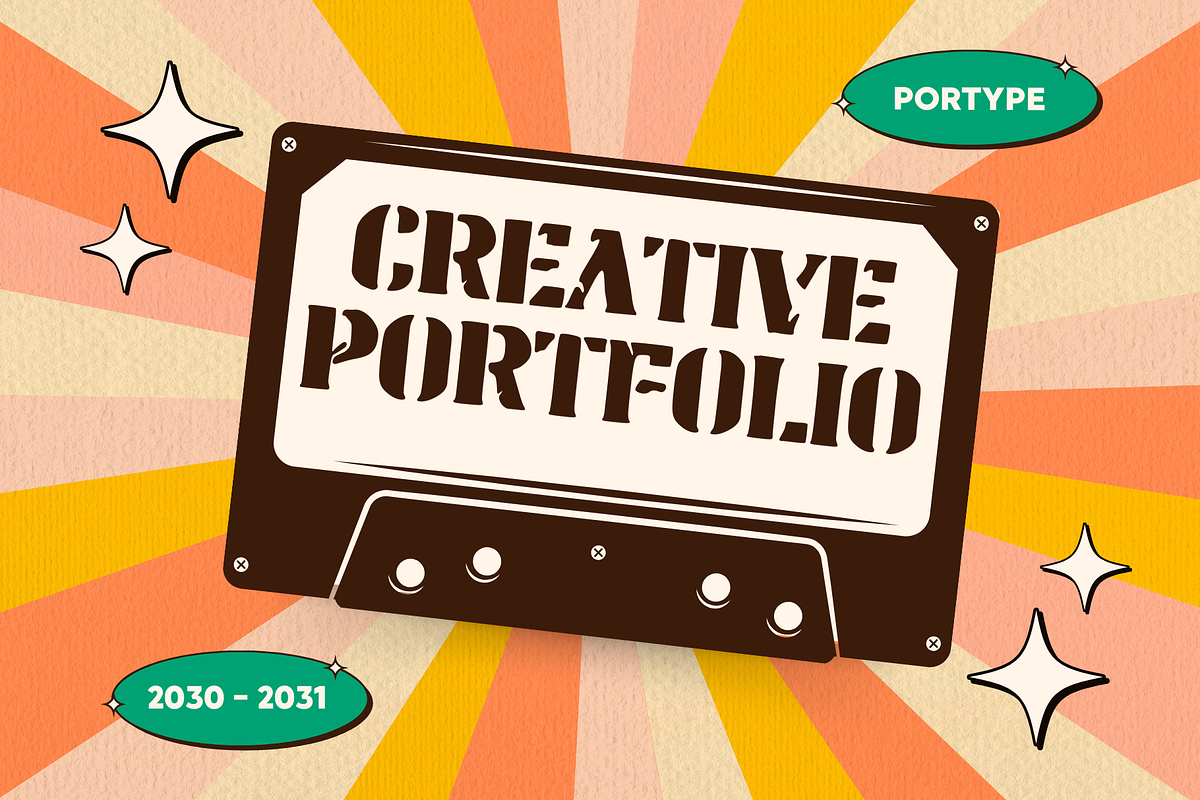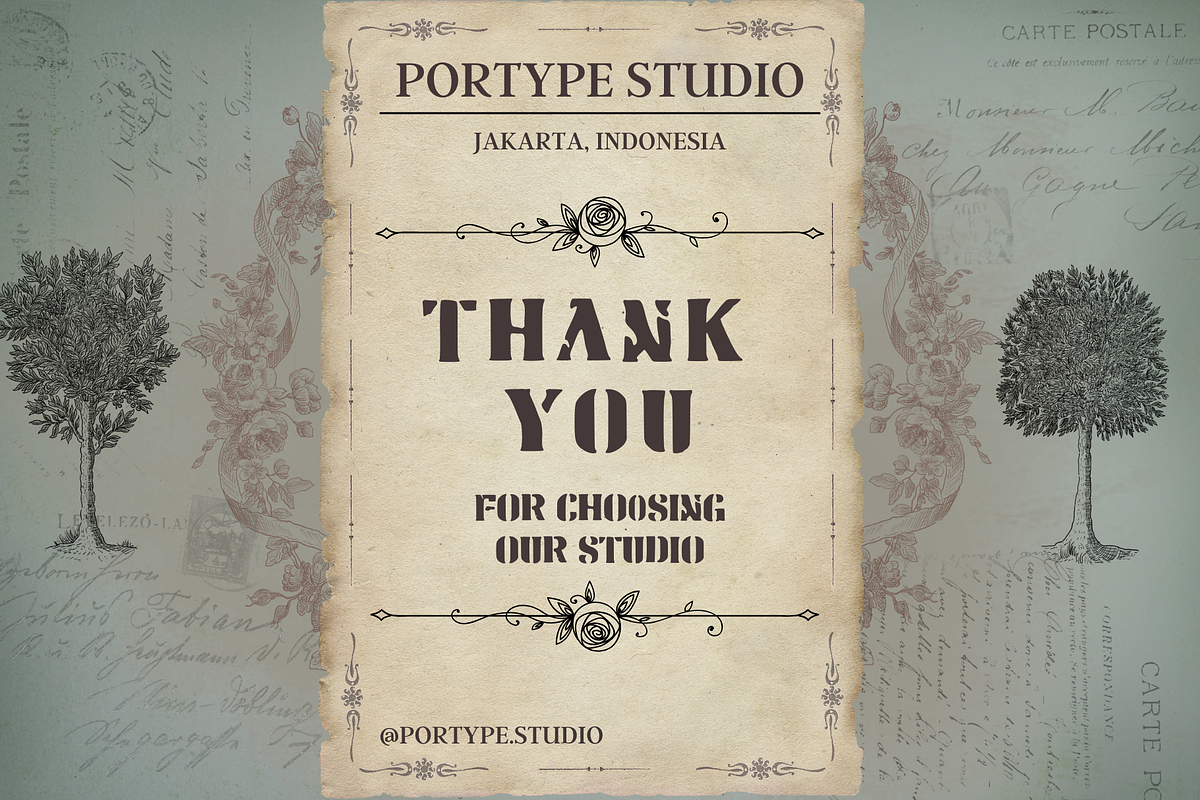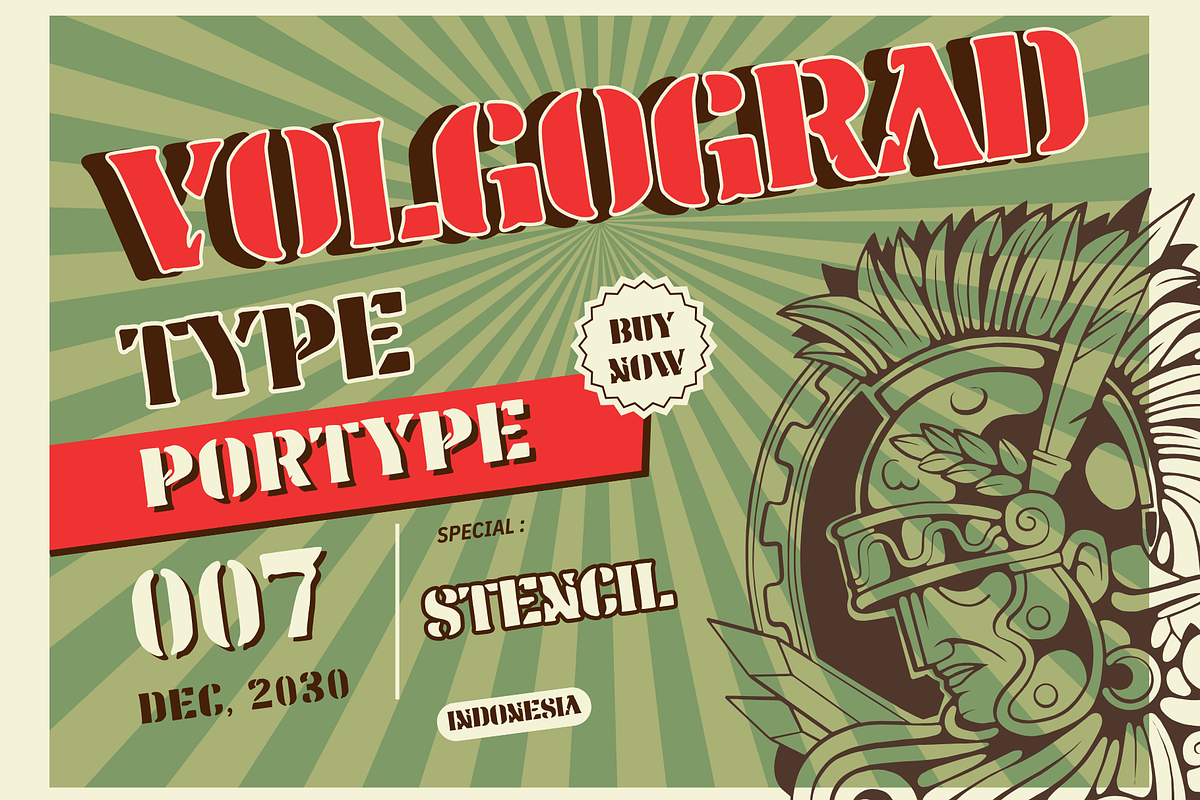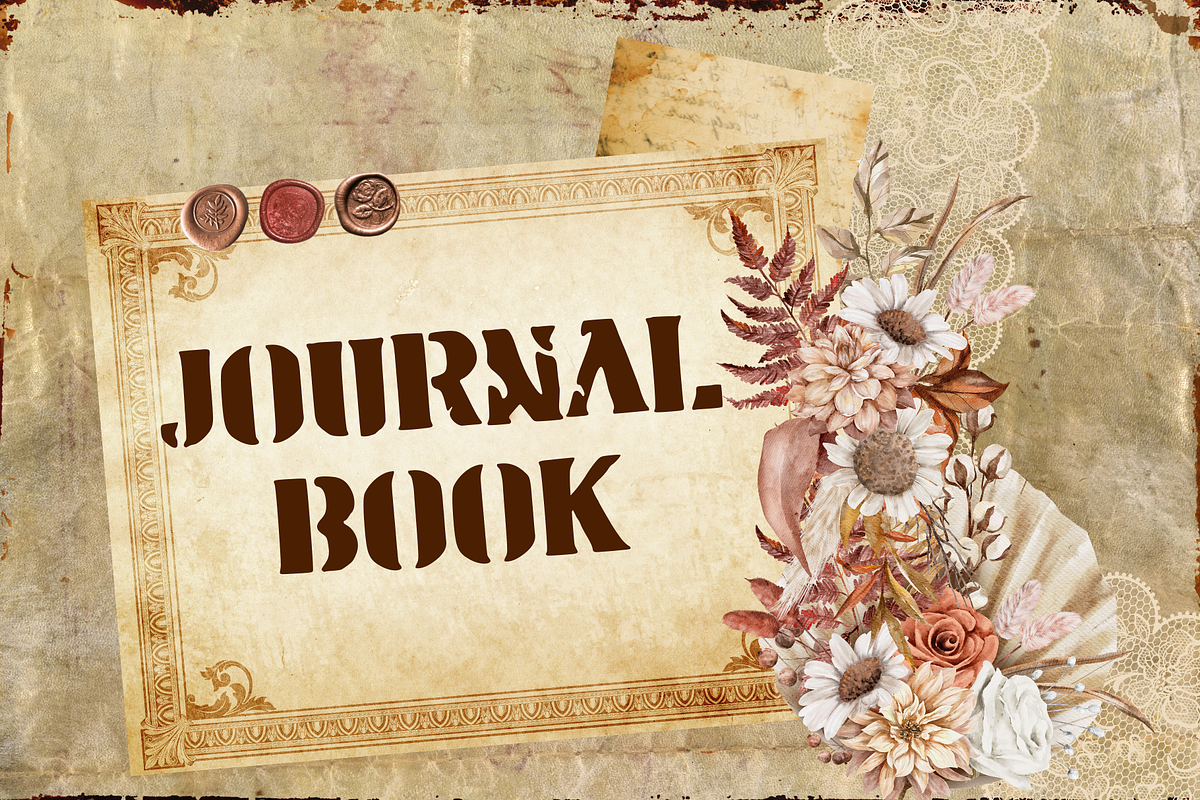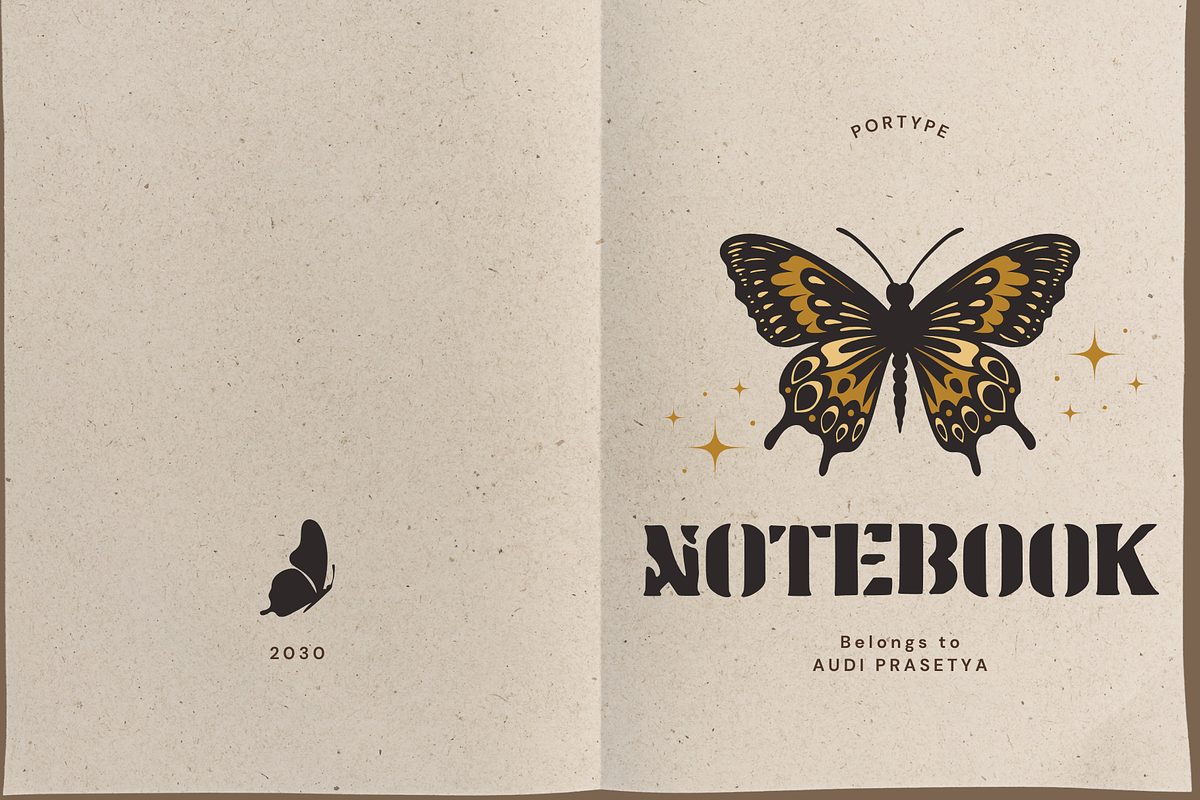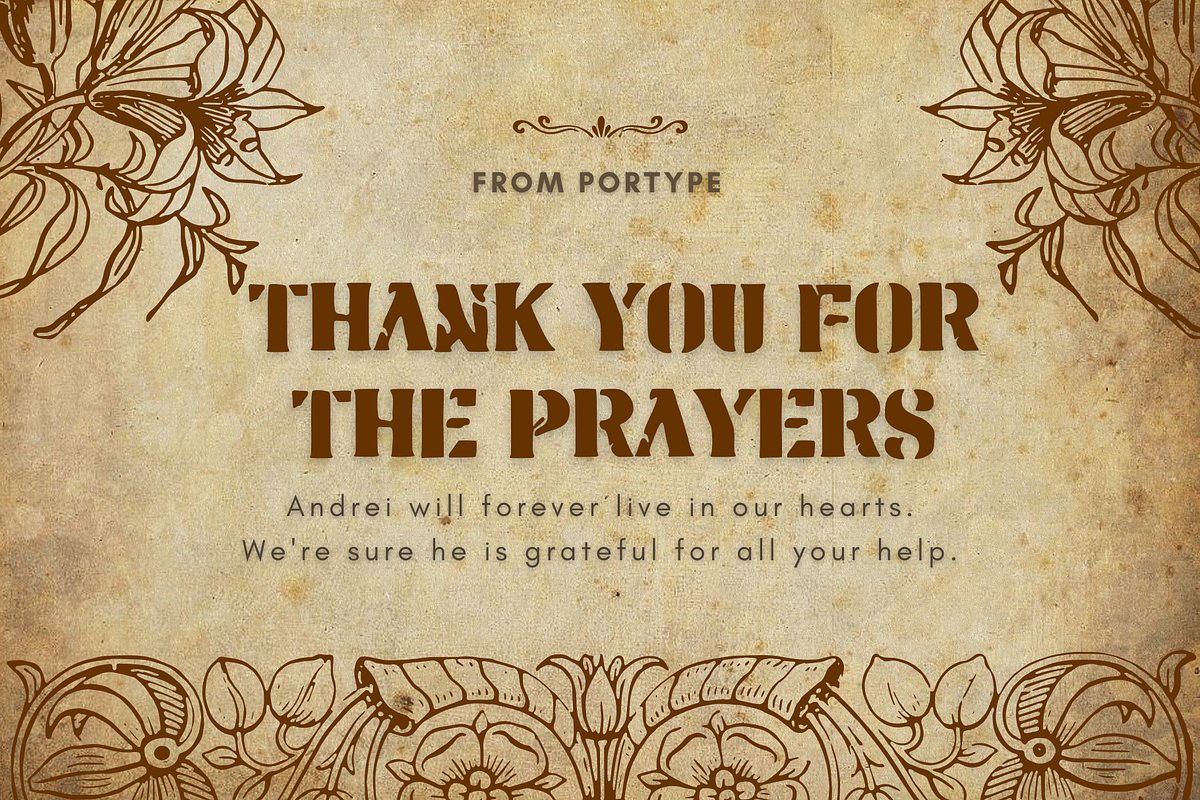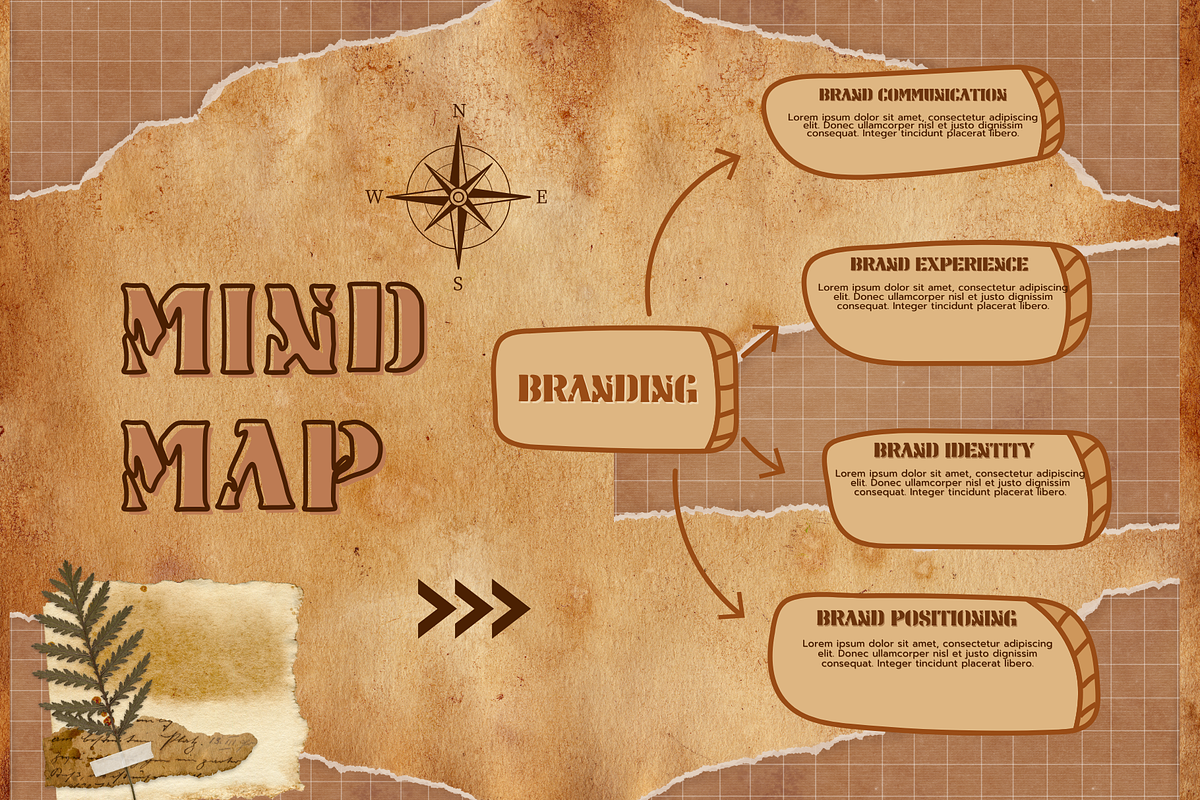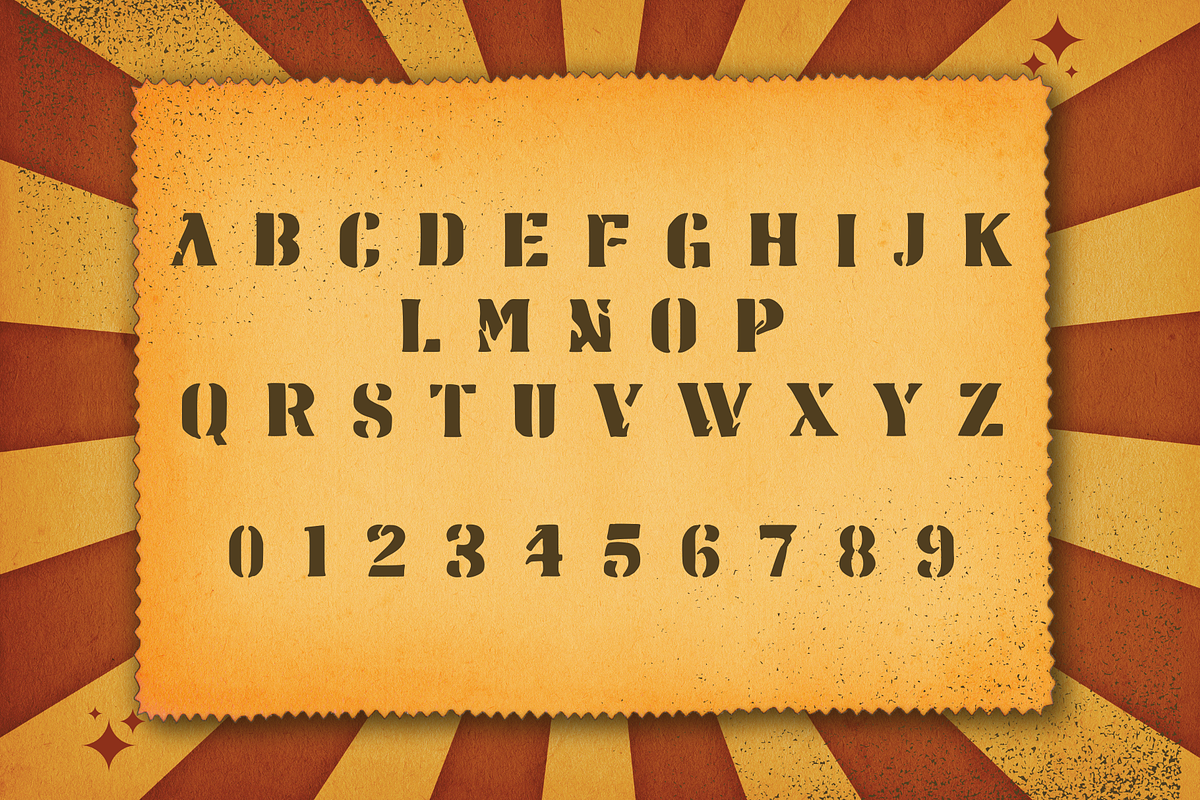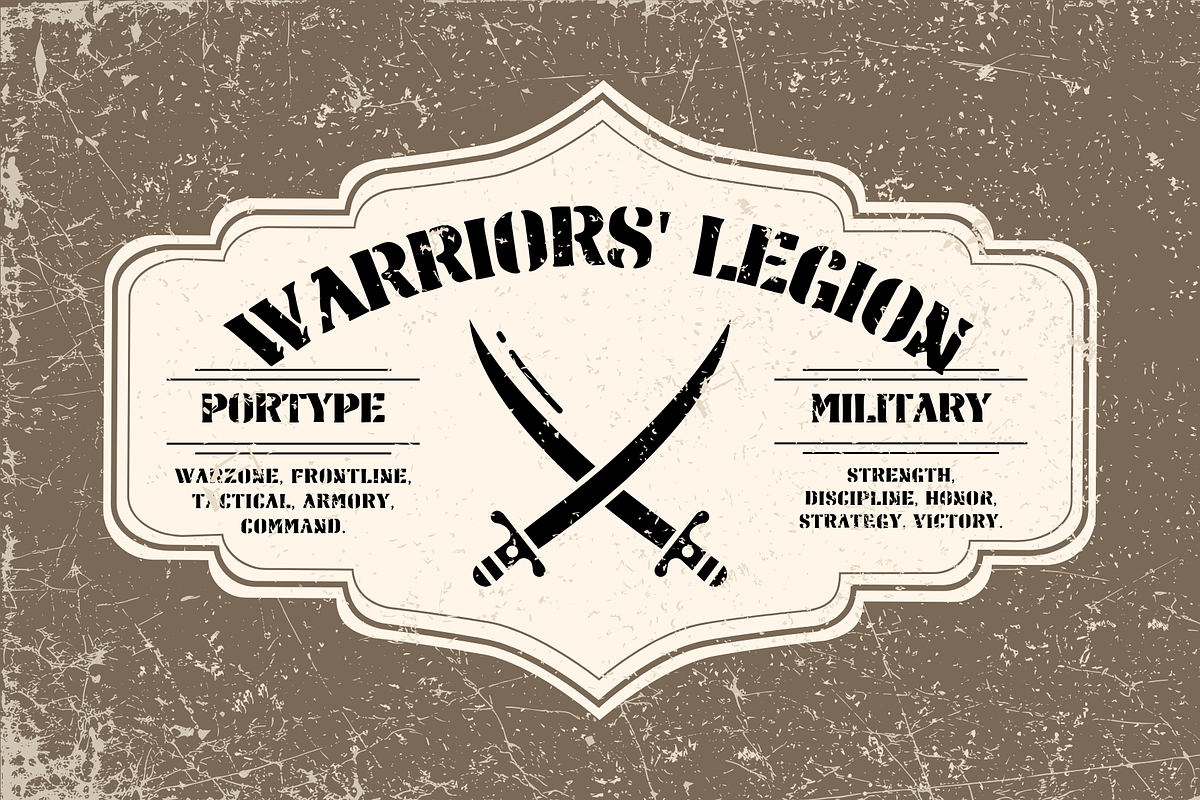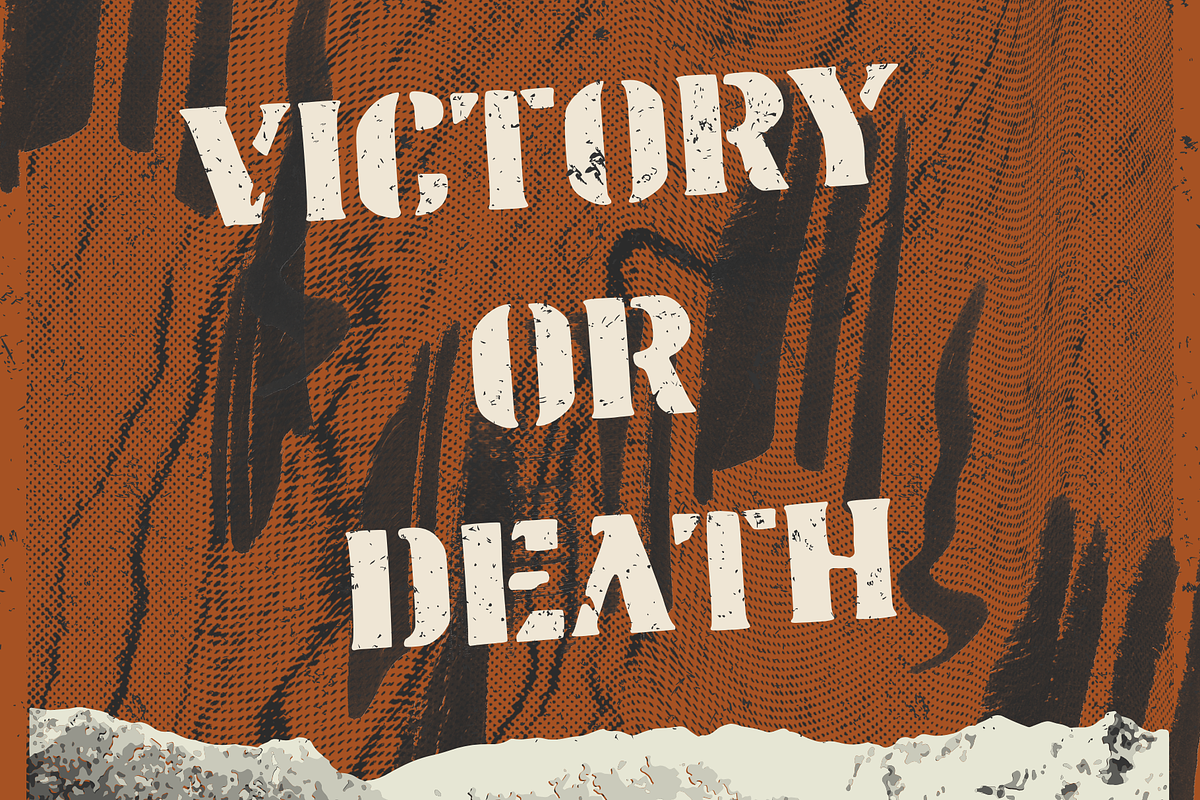
Volgograd Type
Volgograd Type is a powerful and battle-hardened stencil font inspired by military precision, war machines, and battlefield resilience. With its bold, industrial-cut letterforms and rugged texture, this typeface captures the raw strength of wartime typography, making it perfect for tactical branding, military posters, war-themed games, and industrial-style designs.
Designed to resemble markings found on armored vehicles, ammunition crates, and command center signage, Volgograd Type delivers an authentic, distressed look that embodies the essence of strategy, strength, and endurance. Whether you’re creating high-impact headlines, propaganda-style graphics, or tactical merchandise, this font ensures that your message commands attention with authority and power.